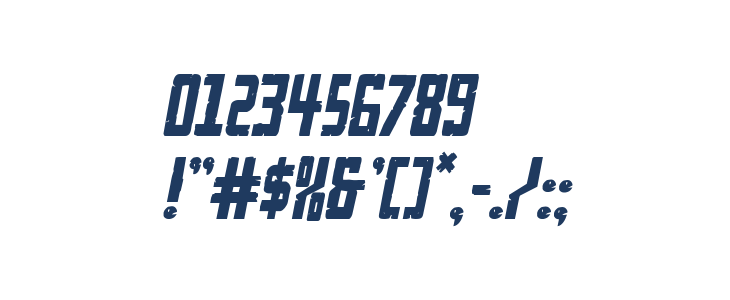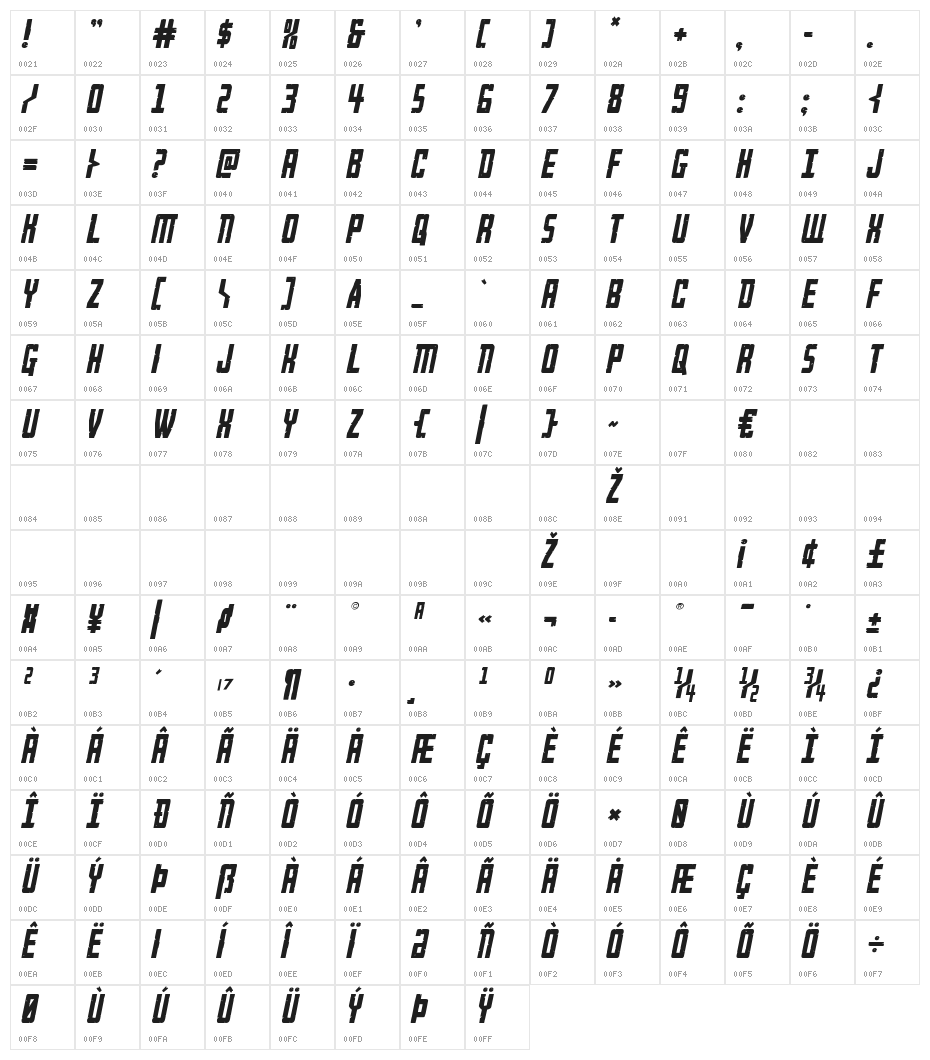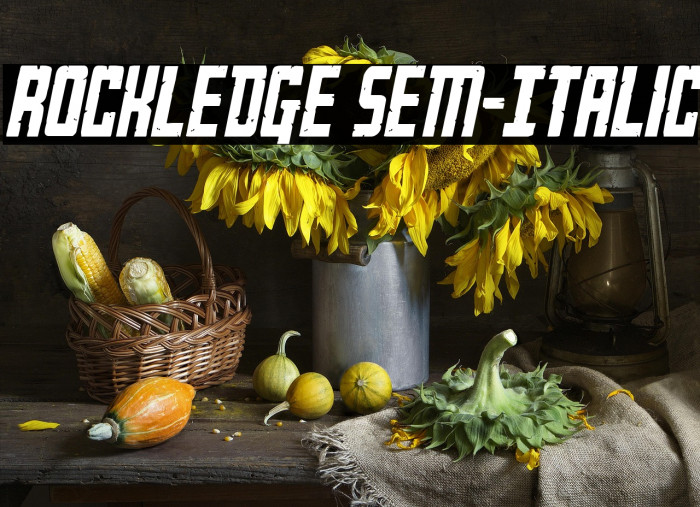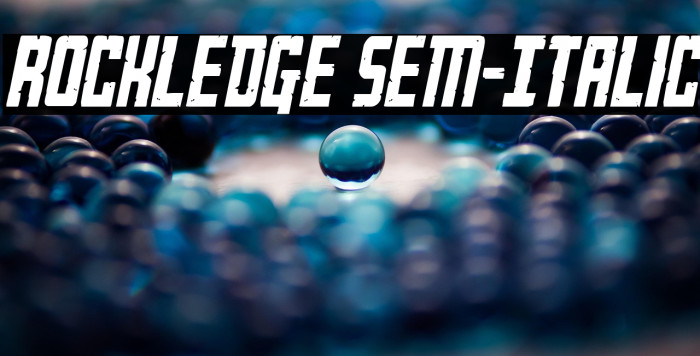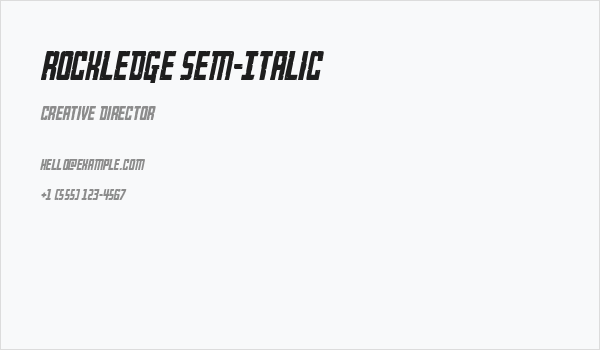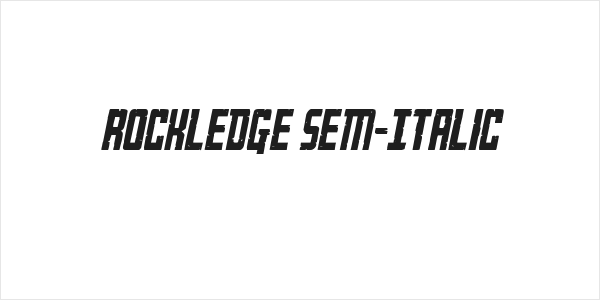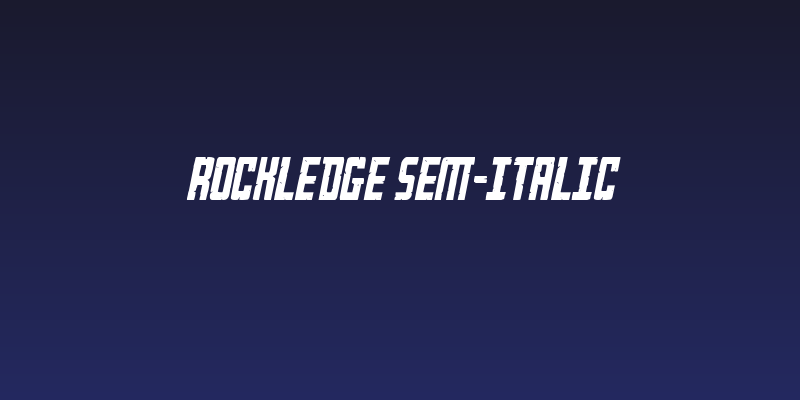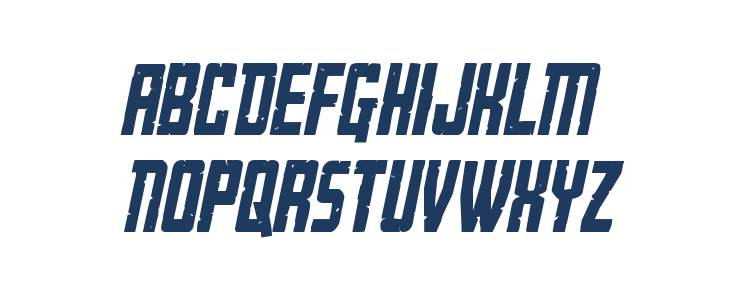
Rockledge Sem-Italic Font
Rockledge Sem-Italic Description
This font features a bold and dynamic style with a distinct italic slant, giving it a sense of movement and energy. The characters are blocky and robust, with a slightly condensed appearance that enhances its strong visual impact. The angular cuts and sharp edges contribute to a modern and industrial feel, making it suitable for attention-grabbing designs. The uppercase and lowercase letters maintain a consistent style, while the numerals and special characters complement the overall aesthetic. This font is ideal for projects that require a bold statement, such as posters, headlines, and branding materials.
| Proposed Projects | Ideal for posters, headlines, branding, and any design needing a bold statement. |